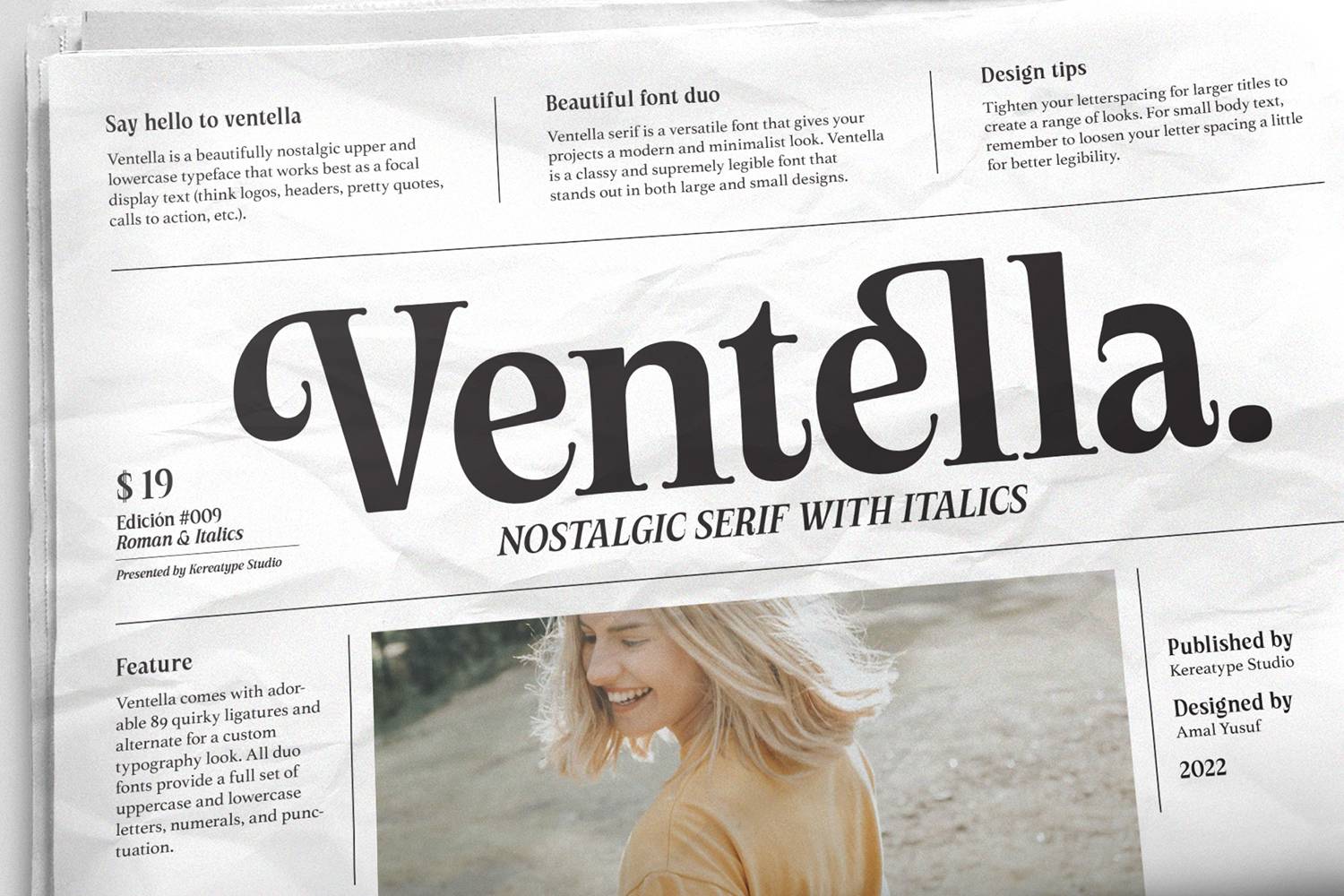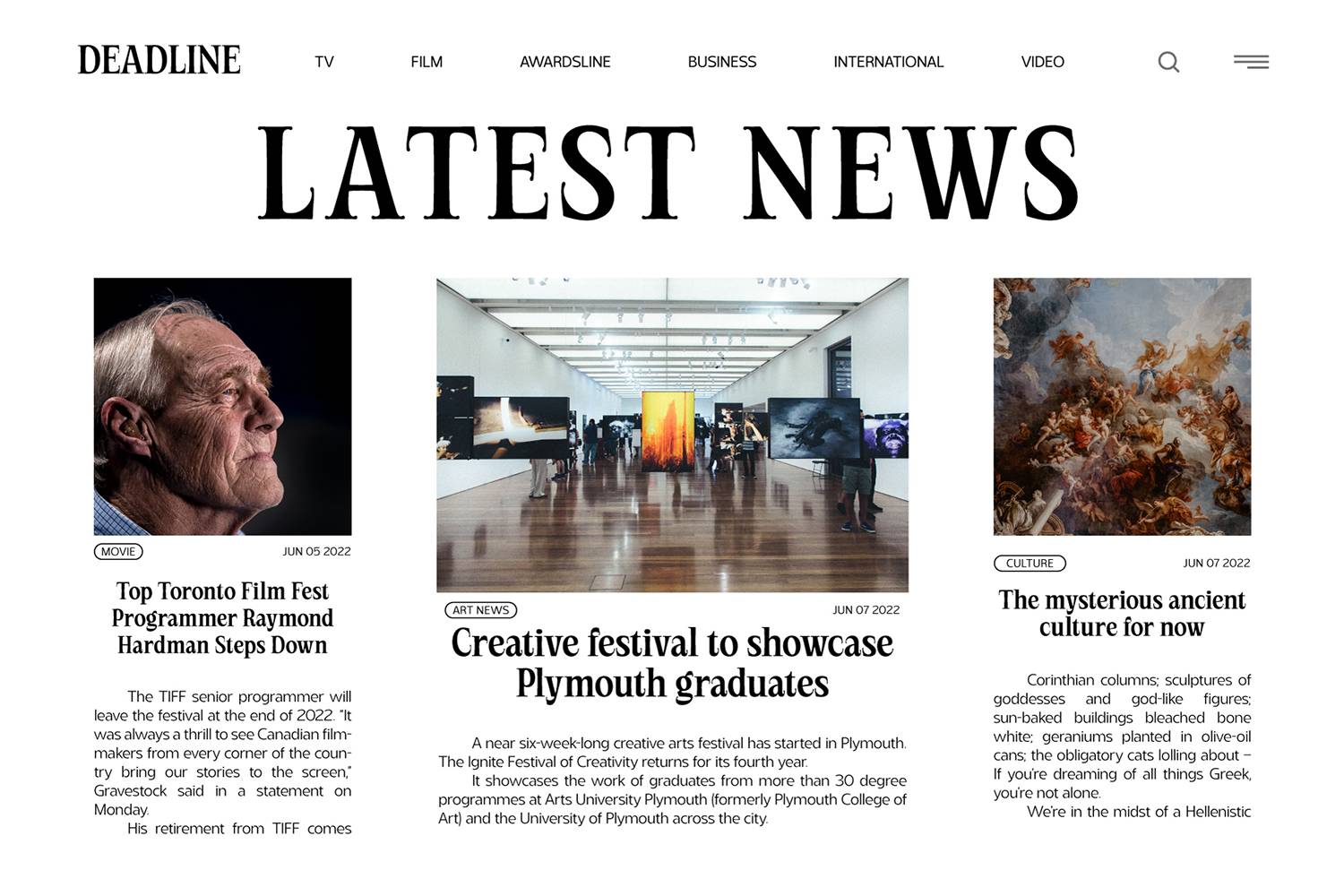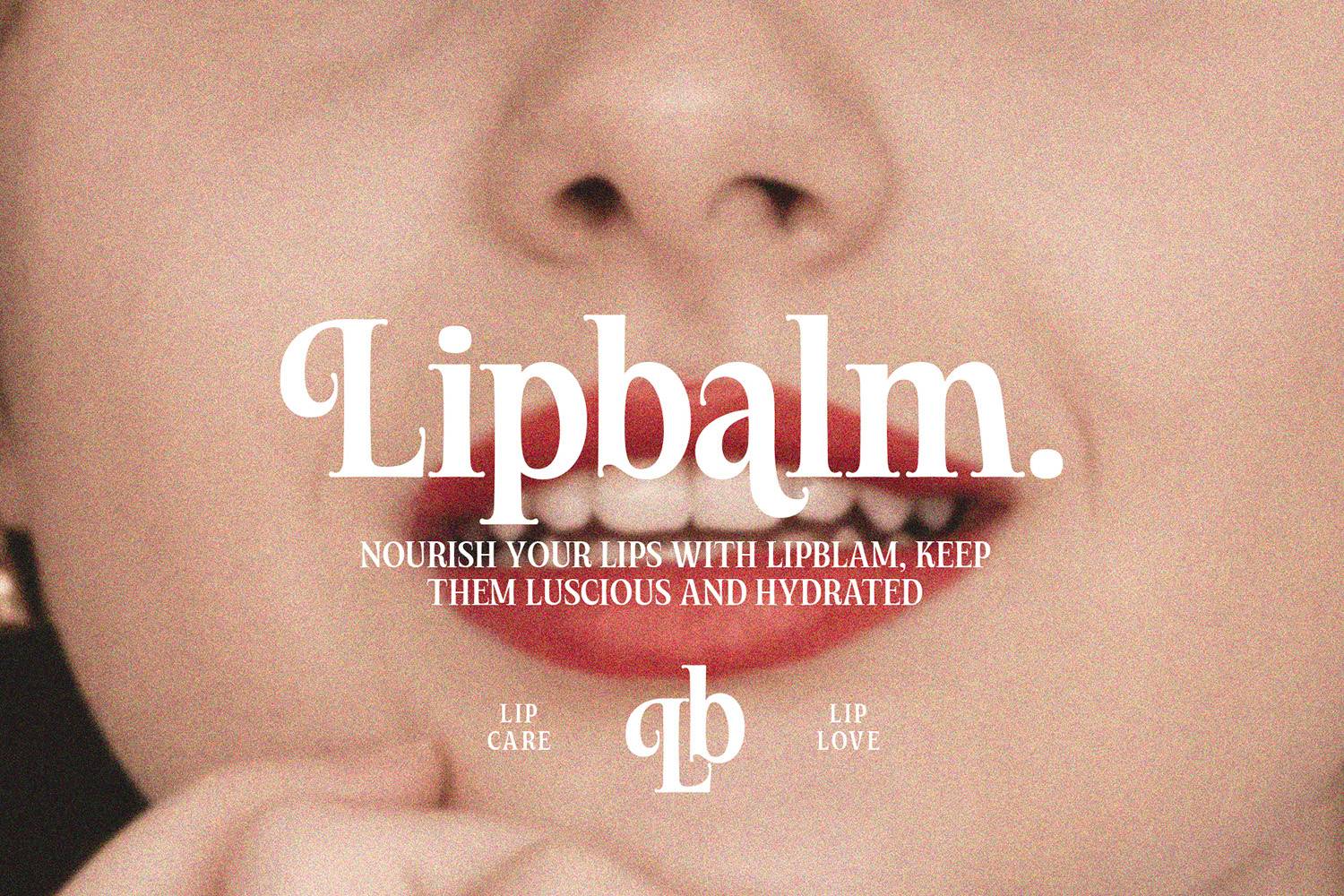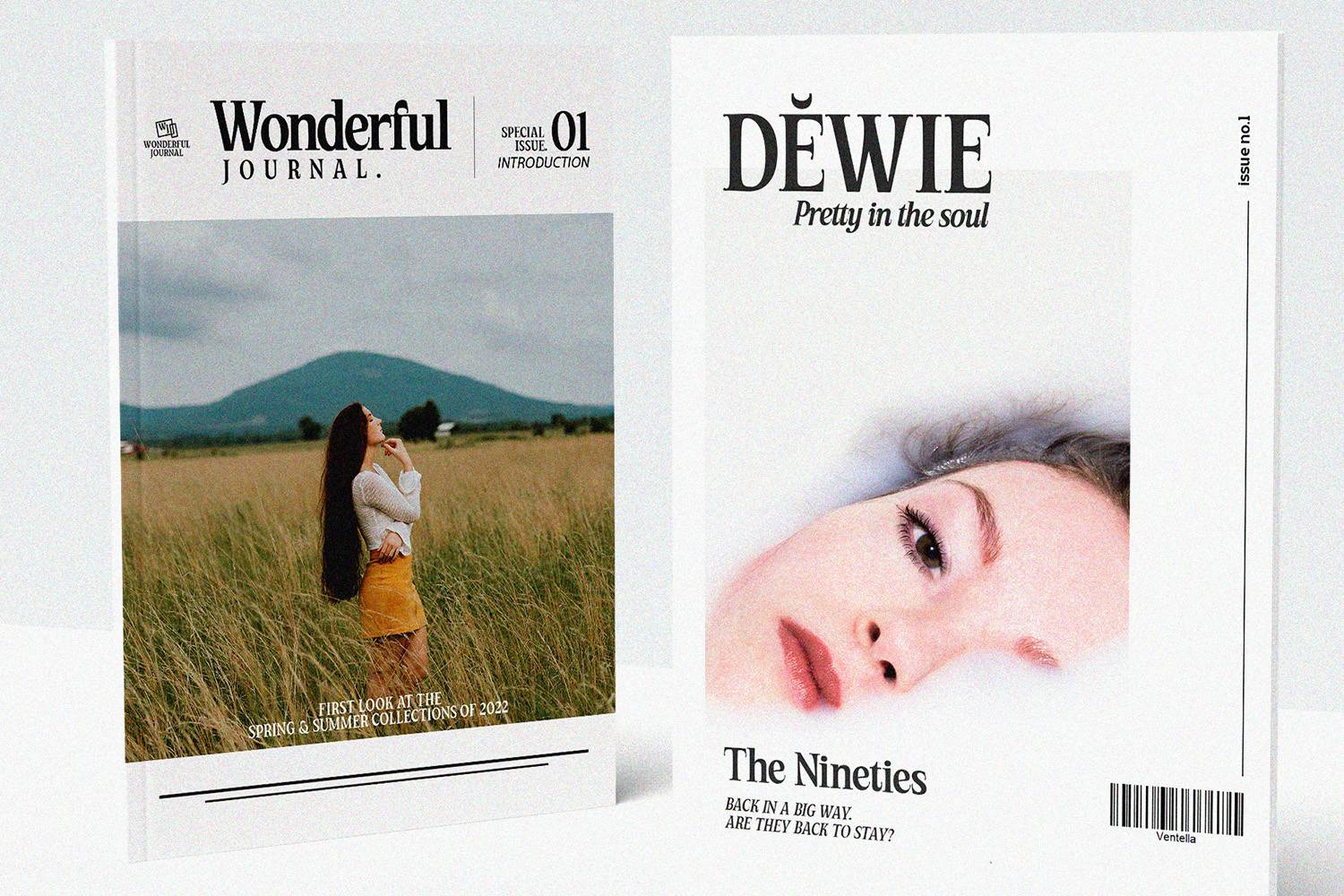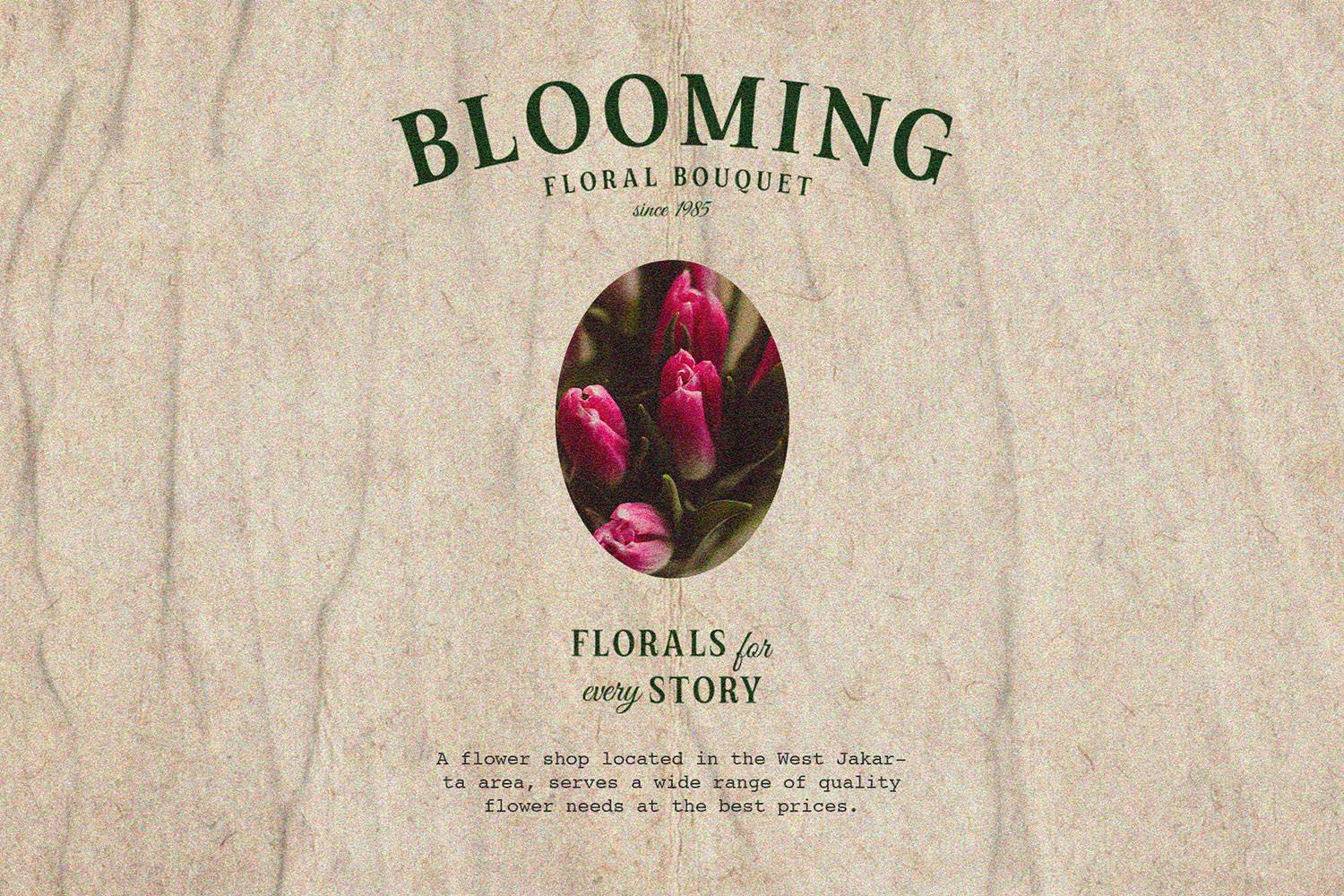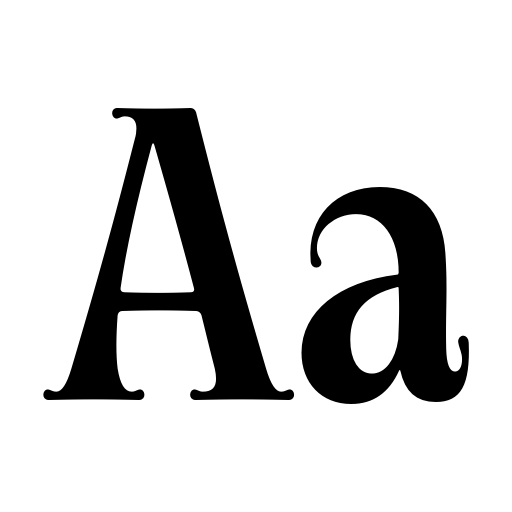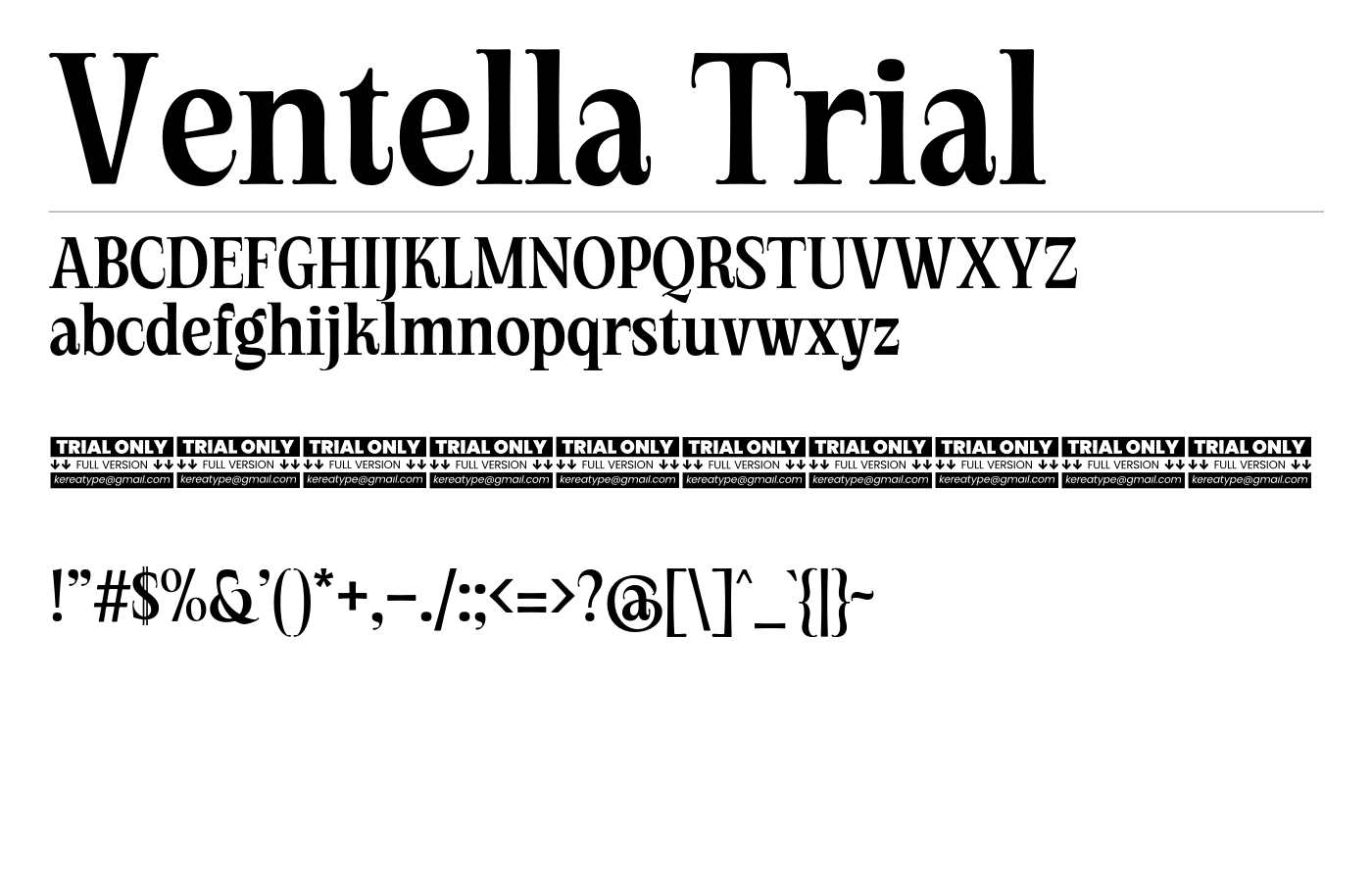
Ventella is a classic serif font with a strong Didone influence, featuring high contrast between thick and thin strokes and elegant, bracketed serifs. Its tall, narrow letterforms and refined details give it a sophisticated, timeless feel, making it ideal for luxury branding, editorial headlines, and formal invitations. This font works well where an elegant yet authoritative presence is needed, combining readability with a distinctive, polished style.
Ventella Font
About Ventella Font
| Designer | Amal Yusuf |